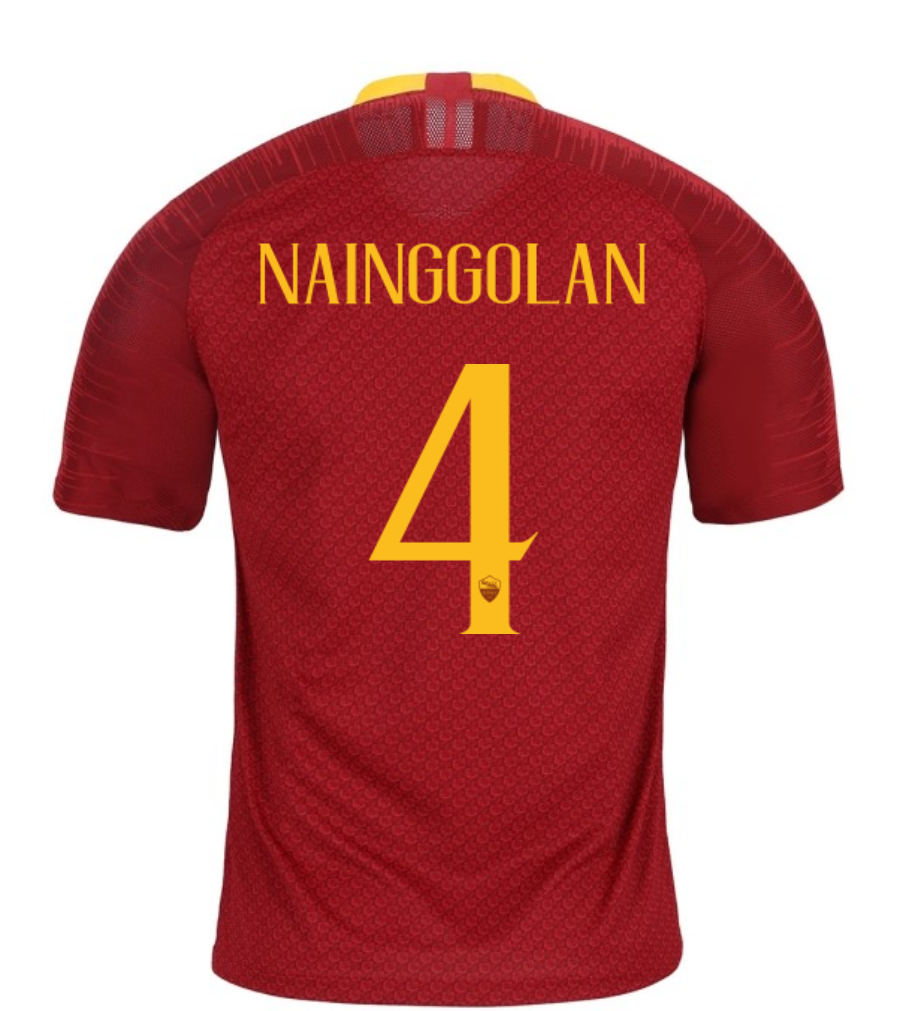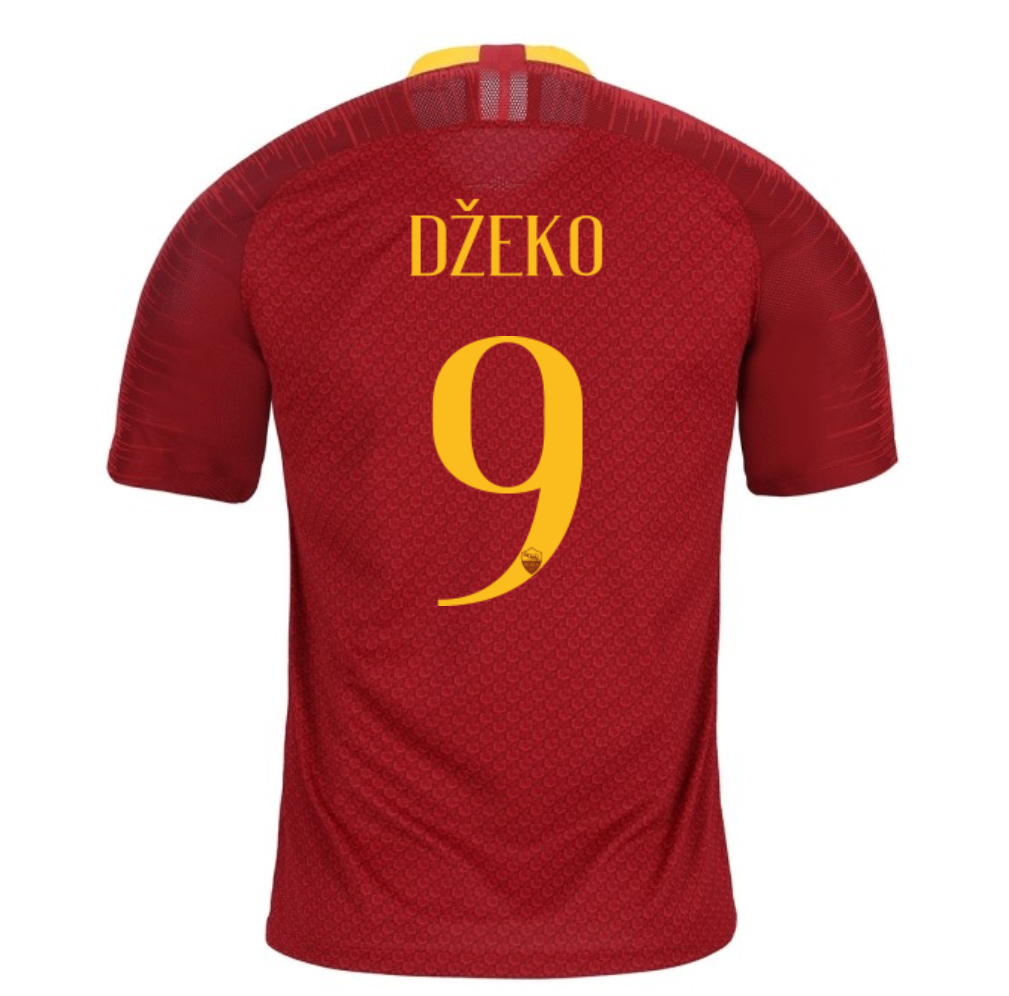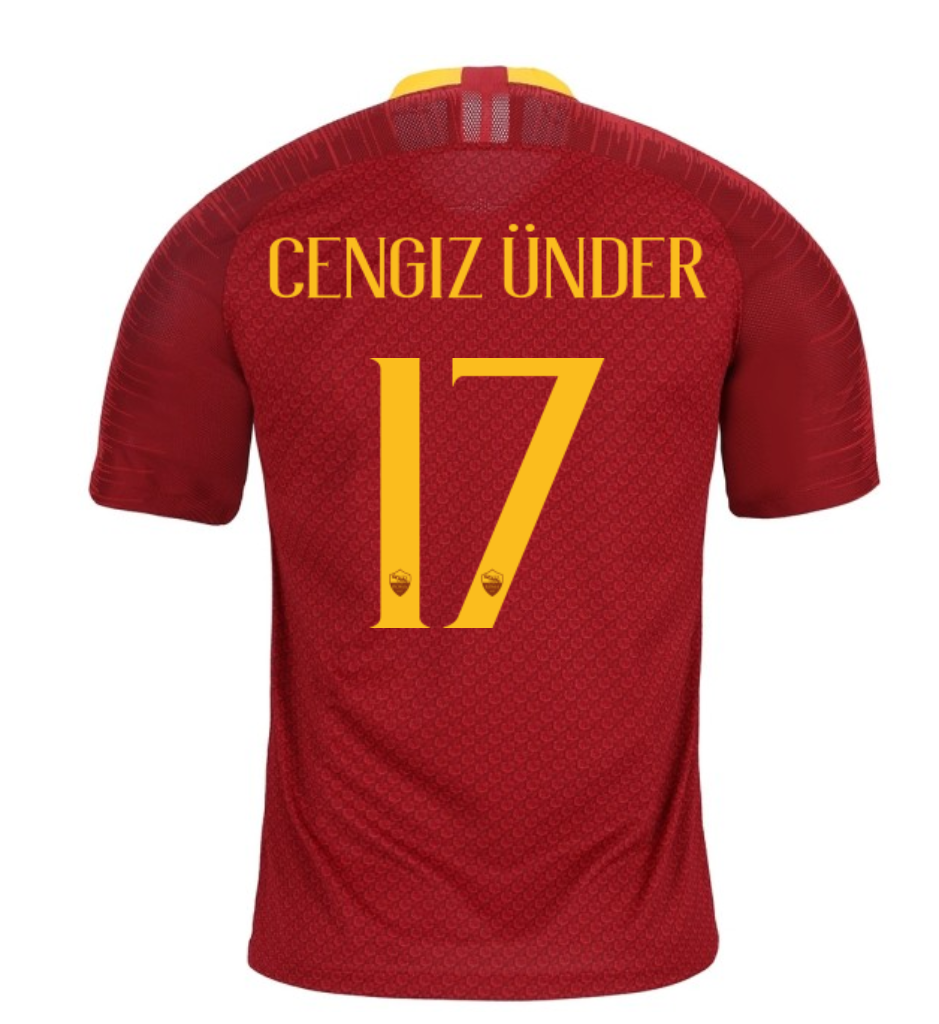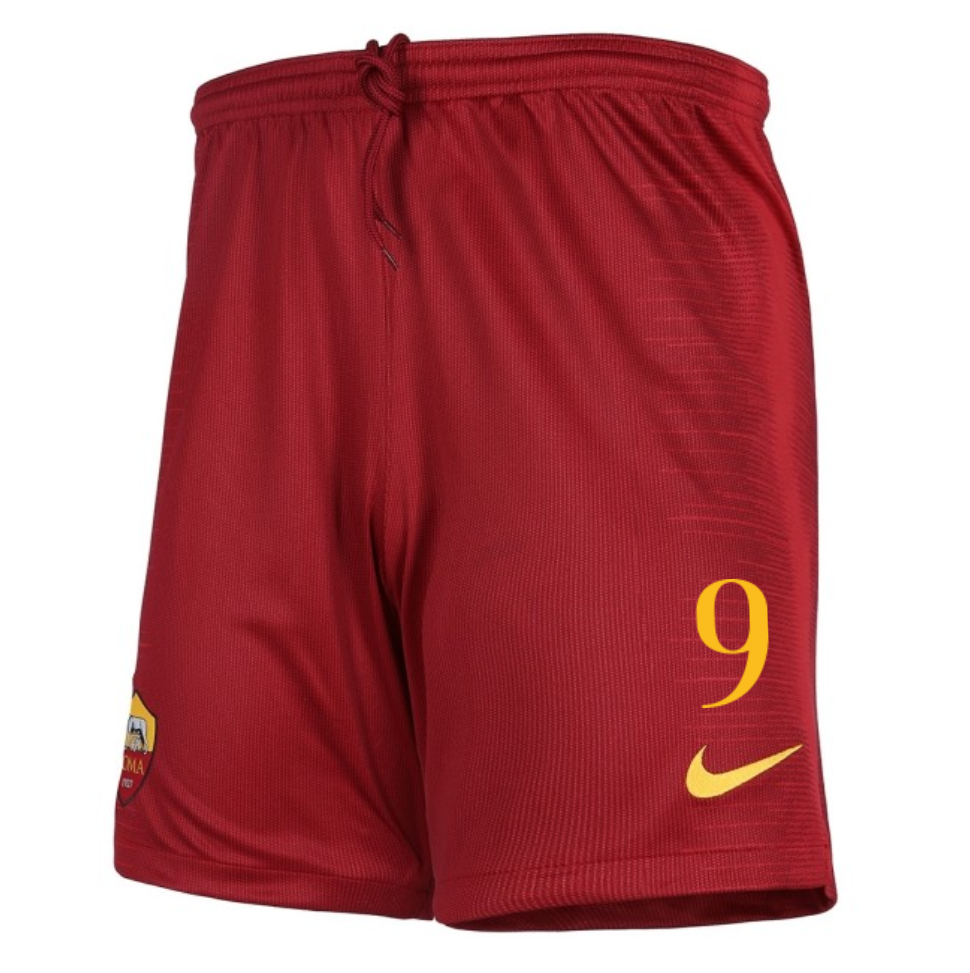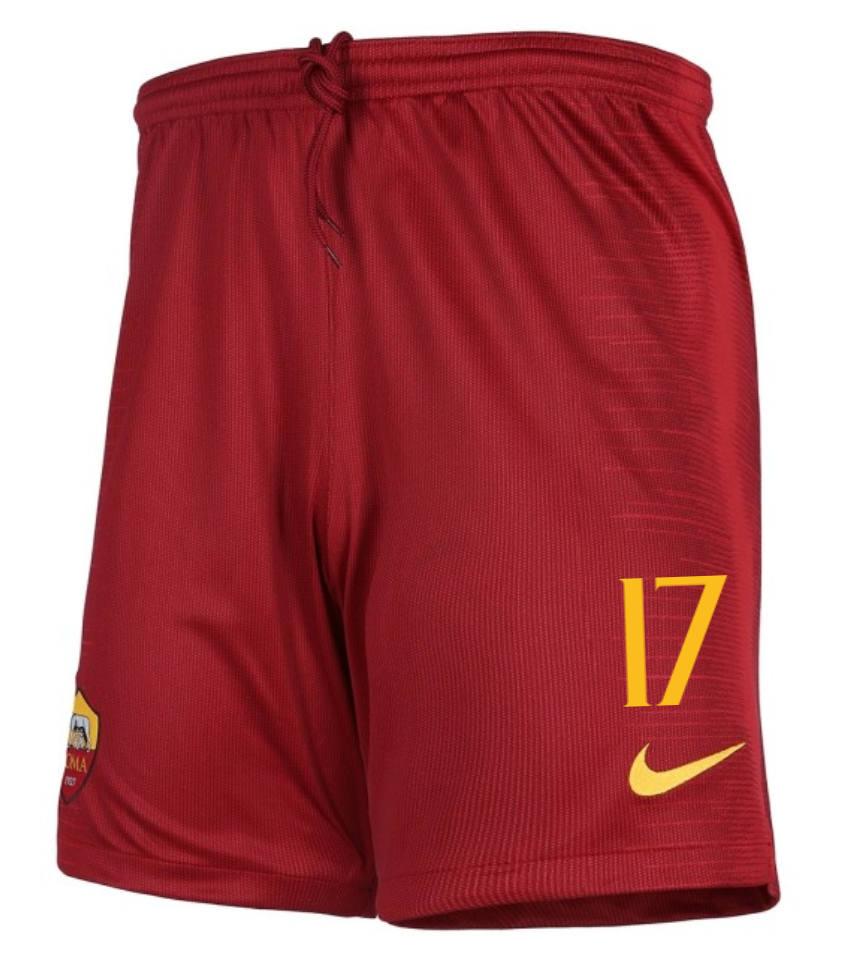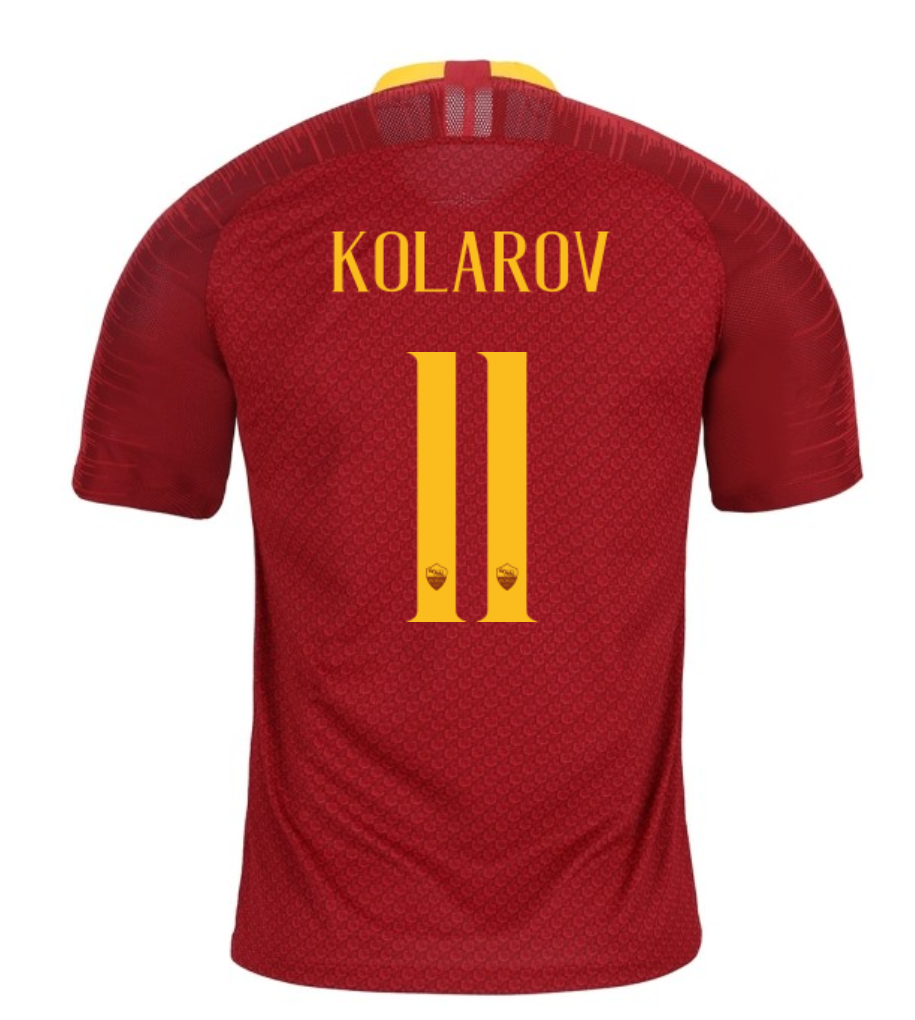
AS Roma 2018/19 original font Inspired by the look of medieval name and numbering
After playing the last to Serie A's matches with the new home shirts, AS Roma and Nike have unveiled the new original font that will be used on all the kits for the 2018-19 season. Inspired by the look of medieval name and numbering, the new Nike AS Roma 18-19 kit font perfectly rounds off the look of the kit that features a graphic taken from the Lorica Hamata chainmail armor worn by soldiers in ancient Rome.